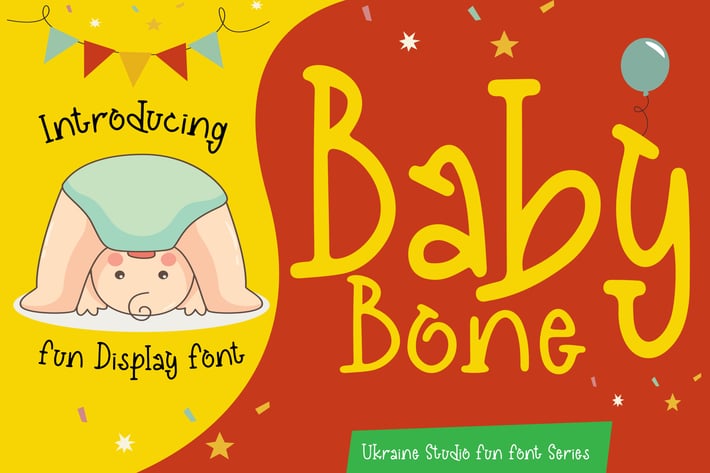
Baby Bone - Creative Fun Children Display Font
Introducing Baby Bone - Creative Fun Children Display Font
Baby Bone is fun font for creative project designs. The typeface has unique style and amazing look to your creative projects. Get this font for your next project and use it to create any design such as flyer, posters, brand logo, product, packaging and more!